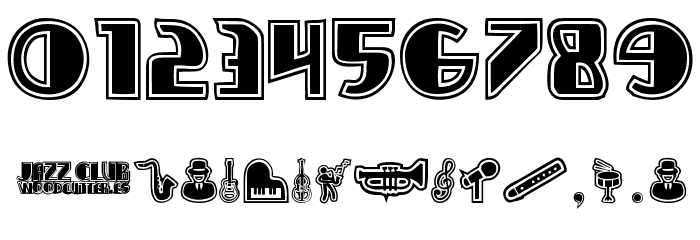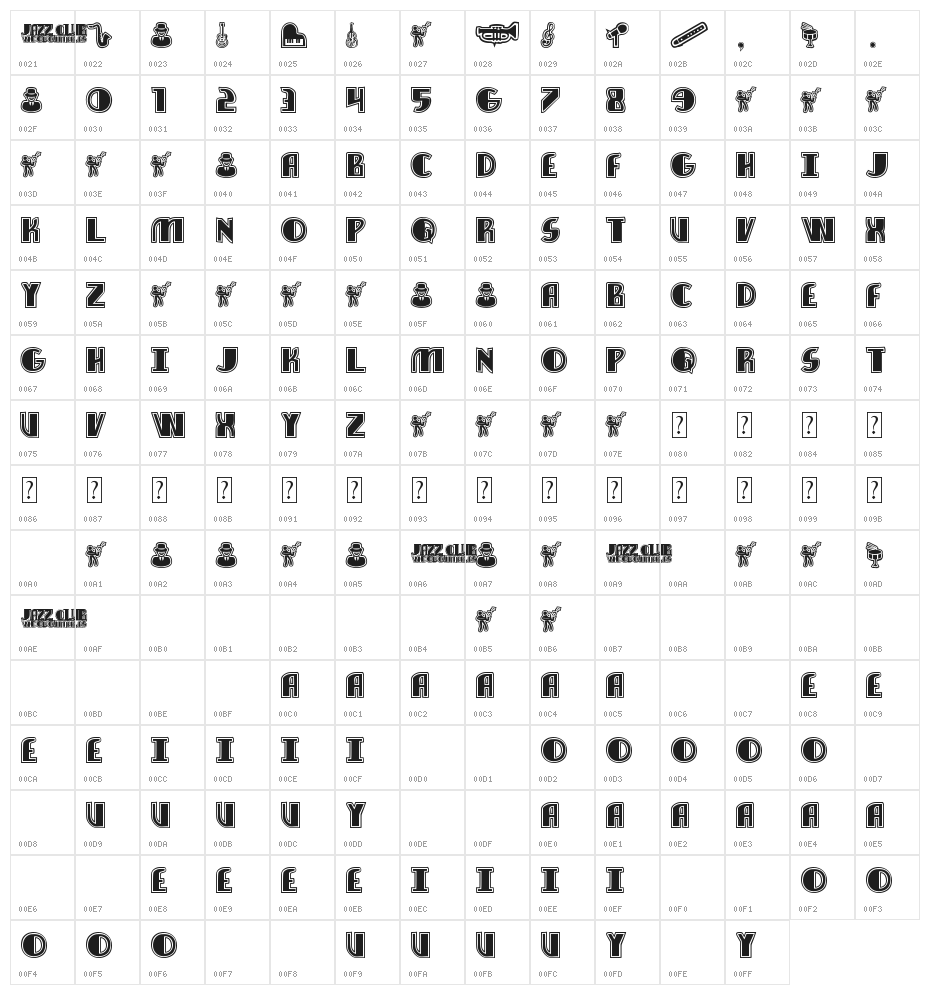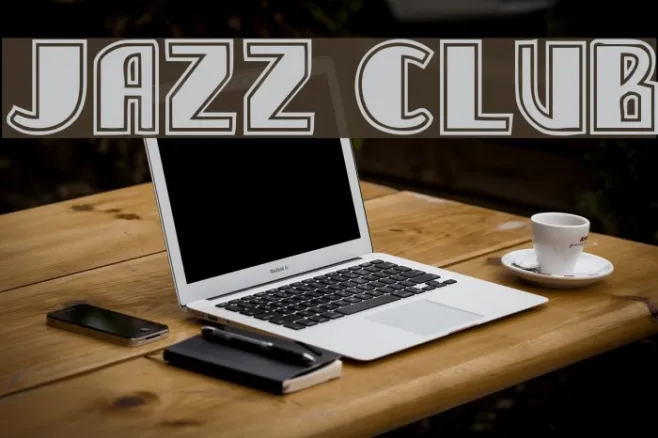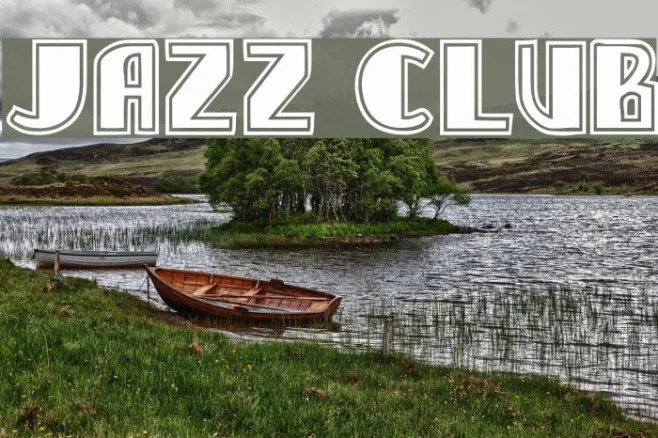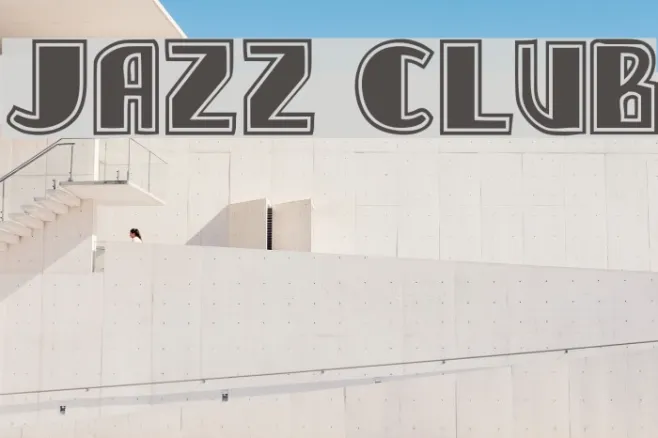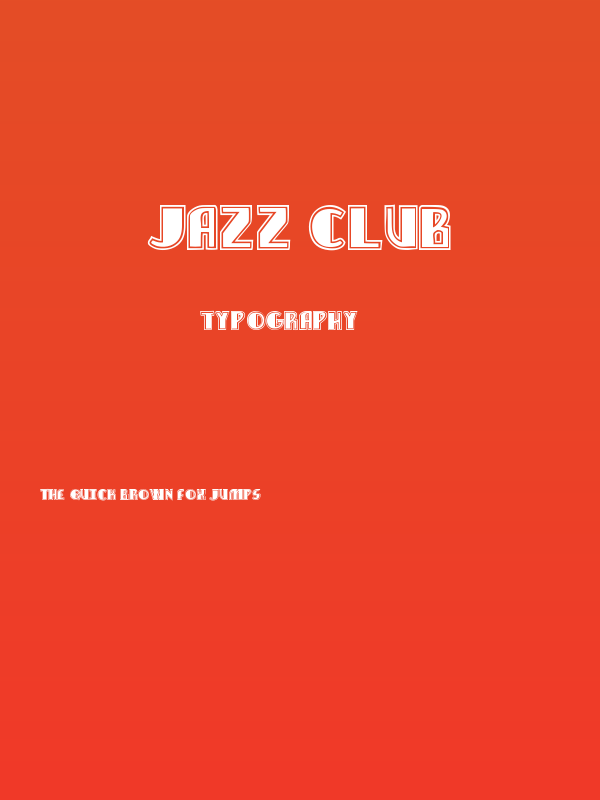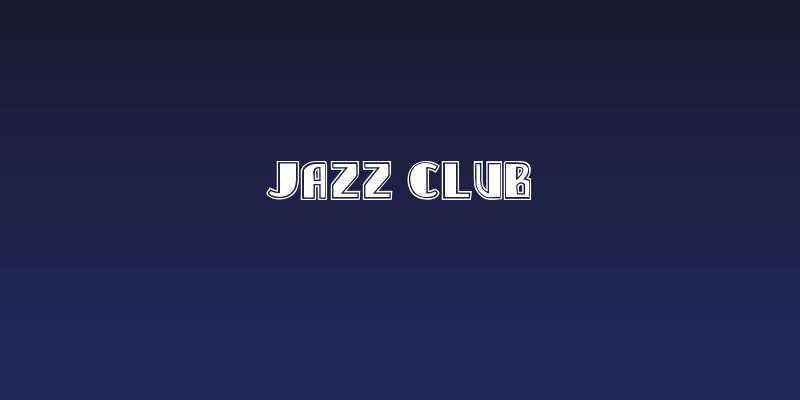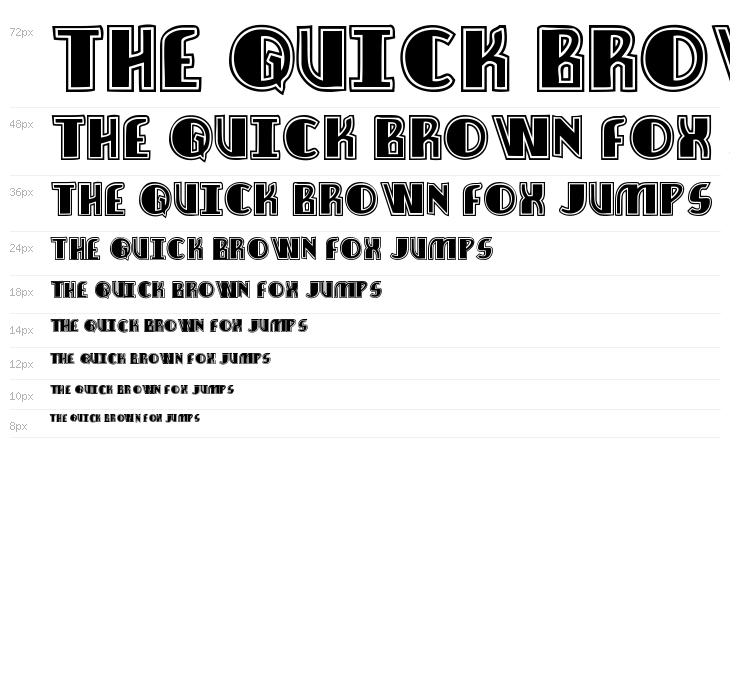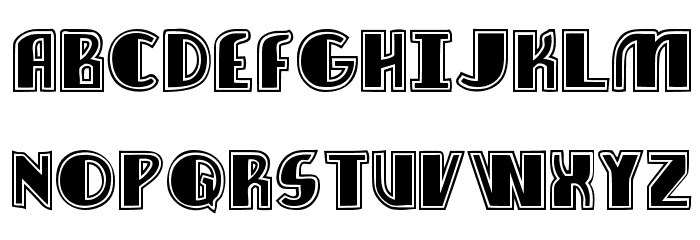
Jazz Club Font
Jazz Club Description
This font features a bold, decorative style with a strong jazz influence, characterized by its thick, blocky letters and unique cut-out detailing that adds a sense of rhythm and movement. The uppercase and lowercase letters maintain a consistent design, offering a cohesive look across all characters. Numbers and special characters are designed with the same boldness and flair, making them stand out. The font's playful yet sophisticated style is reminiscent of classic jazz club signage, evoking a sense of nostalgia and musicality.